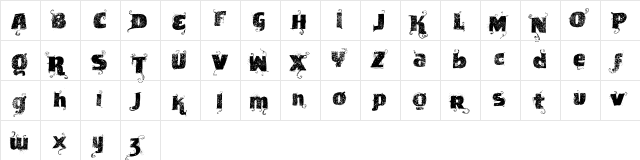
VTKS News Label Regular
| Foundry | douglas vitkauskas |
| Designer | douglas vitkauskas |
Design Context for VTKS News Label Typeface
VTKS News Label is a composed and adaptable typeface that performs quietly and consistently across a wide range of design contexts.